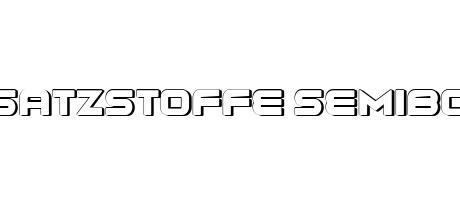
Zusatzstoffe
Zusatzstoffe SemiBold is a bold, sans-serif typeface with a distinct, almost extruded appearance. The letters are chunky and possess a three-dimensional quality, giving them a strong, geometric presence. It's a highly legible font, suitable for headlines and titles demanding attention. Its strong lines exude confidence and modernity.